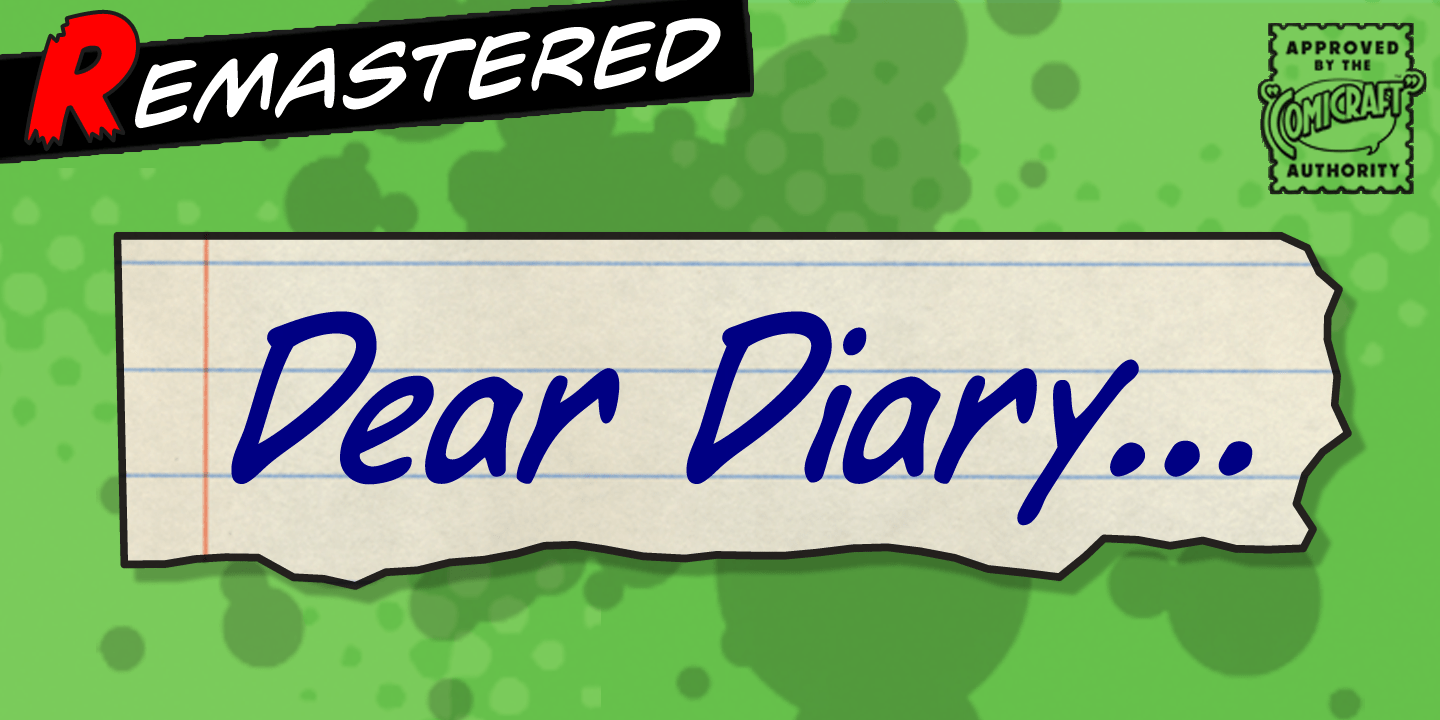
Dear Diary
Font Family by Comicraft Fonts
Dear diary, what a day it's been. Dear diary, it's been just like a dream. Woke up late. Wasn't where I should have been. For goodness sake what's happening to me? Write lightly, yours truly, dear diary.
At last, a font to help you overcome those moody blues...